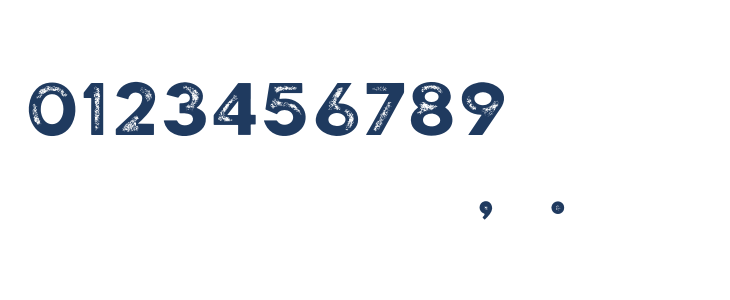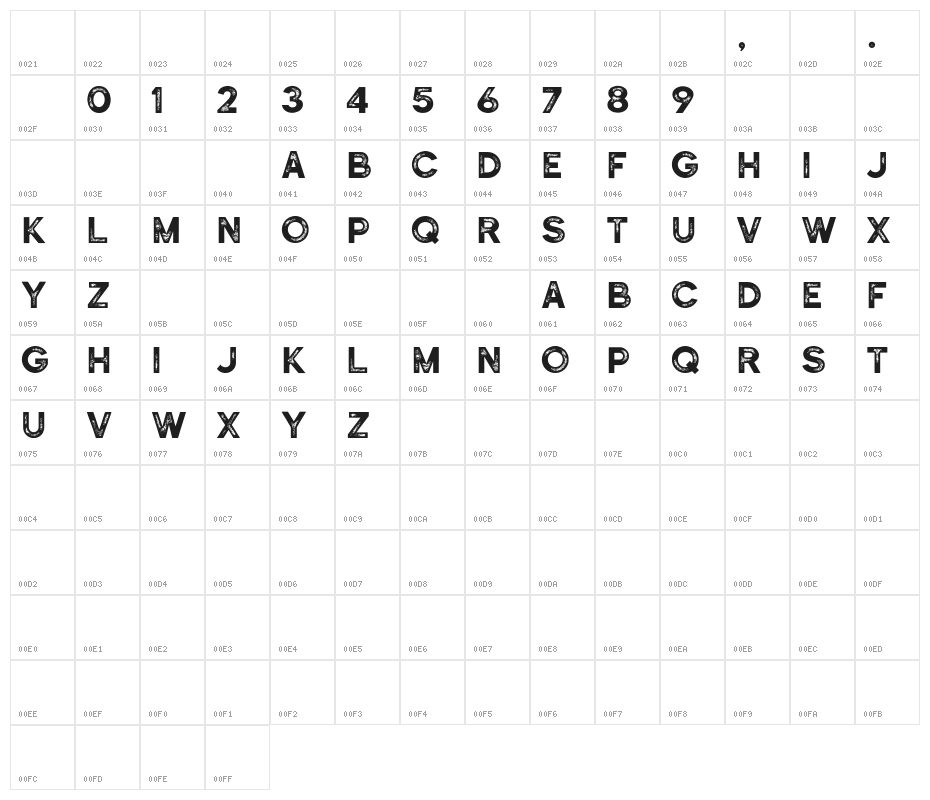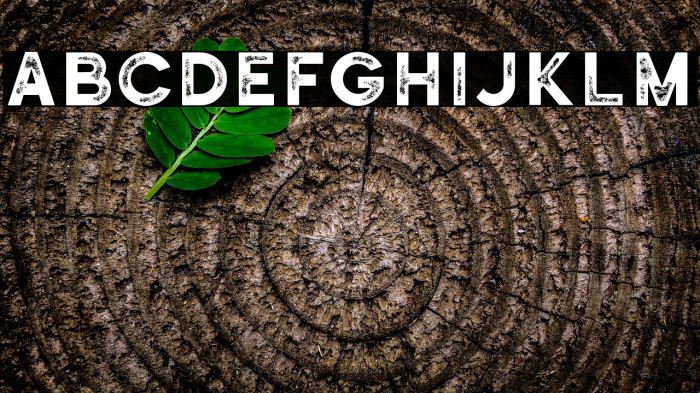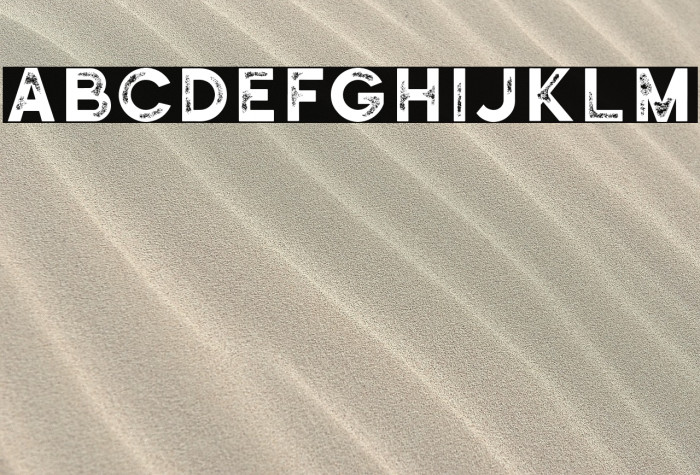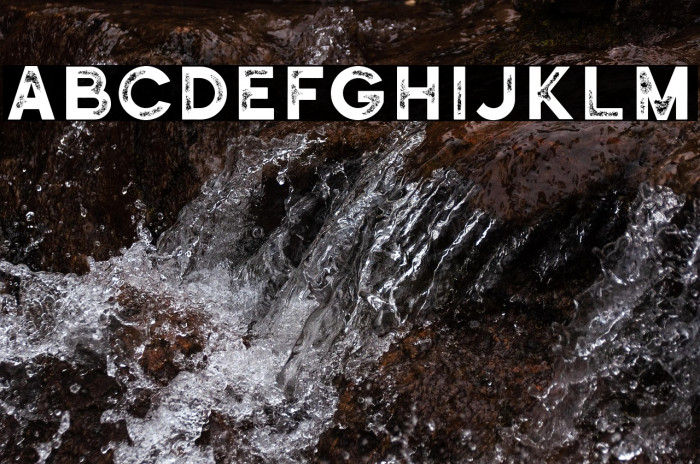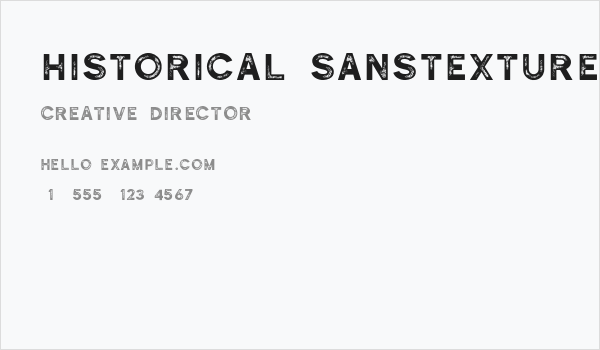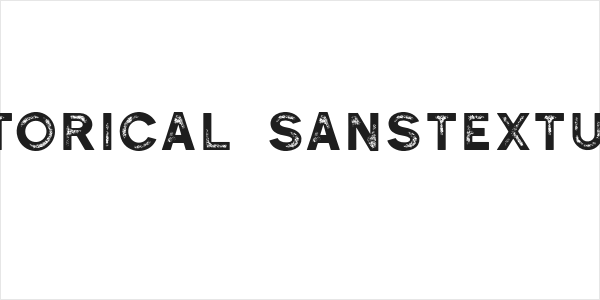
Historical-SansTextured Font
Historical-SansTextured Description
This font features a bold, textured style that combines a modern sans-serif structure with a distressed, vintage appearance. Each character is designed with a rough, worn effect, giving it a unique, historical feel. The uppercase and lowercase letters maintain a consistent weight, enhancing readability while adding a touch of character through their textured surfaces. The numerals and special characters follow the same design principles, ensuring a cohesive look across all text elements. This font's distinctive style makes it ideal for projects that require a blend of modernity and nostalgia.